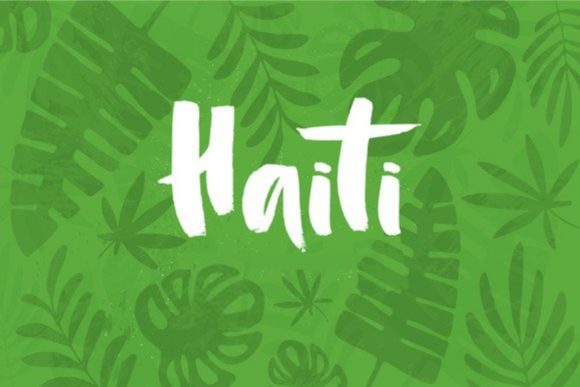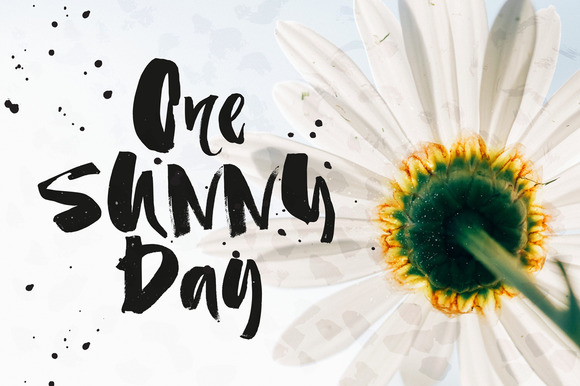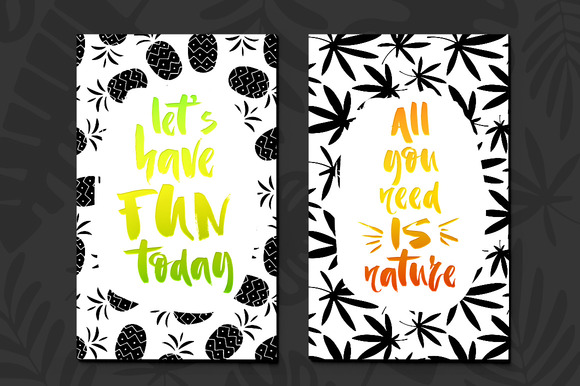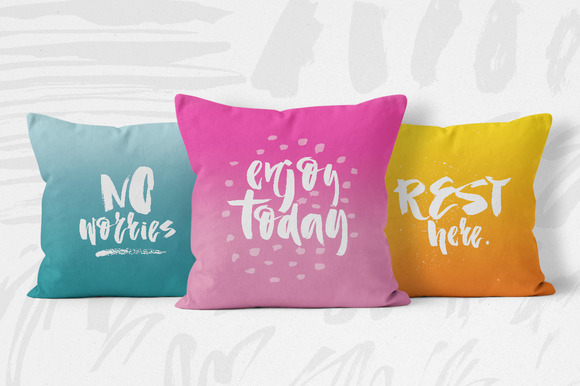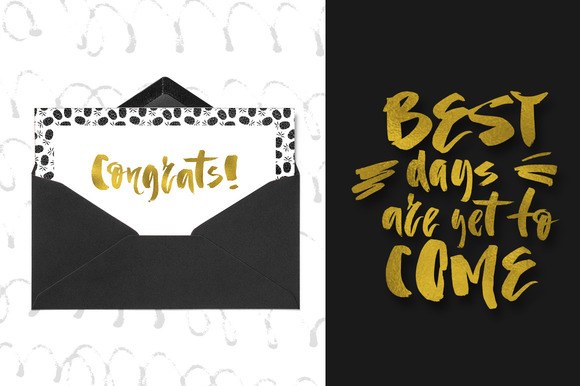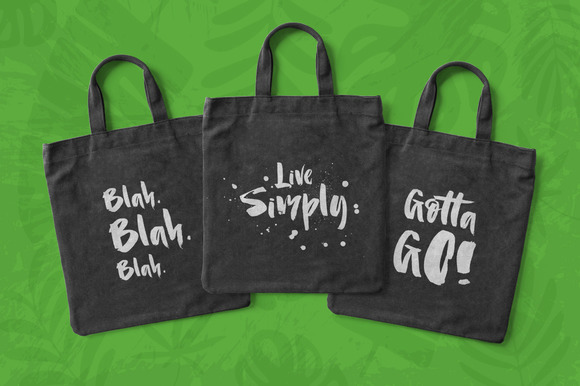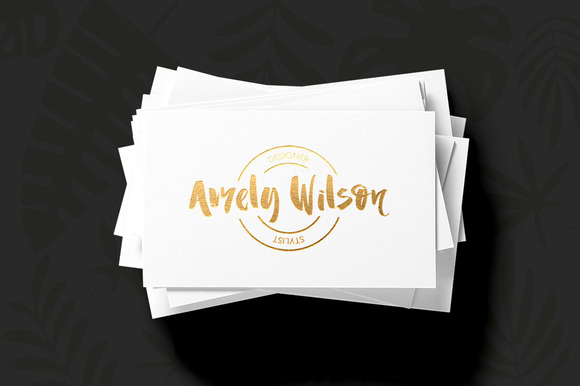
Haiti Font
About Haiti Font
Haiti is a easy-going brush font that features an organic texture. The Haiti type has been drawn with a brush and ink on paper before it was digitized. This gives it a authentic natural look.